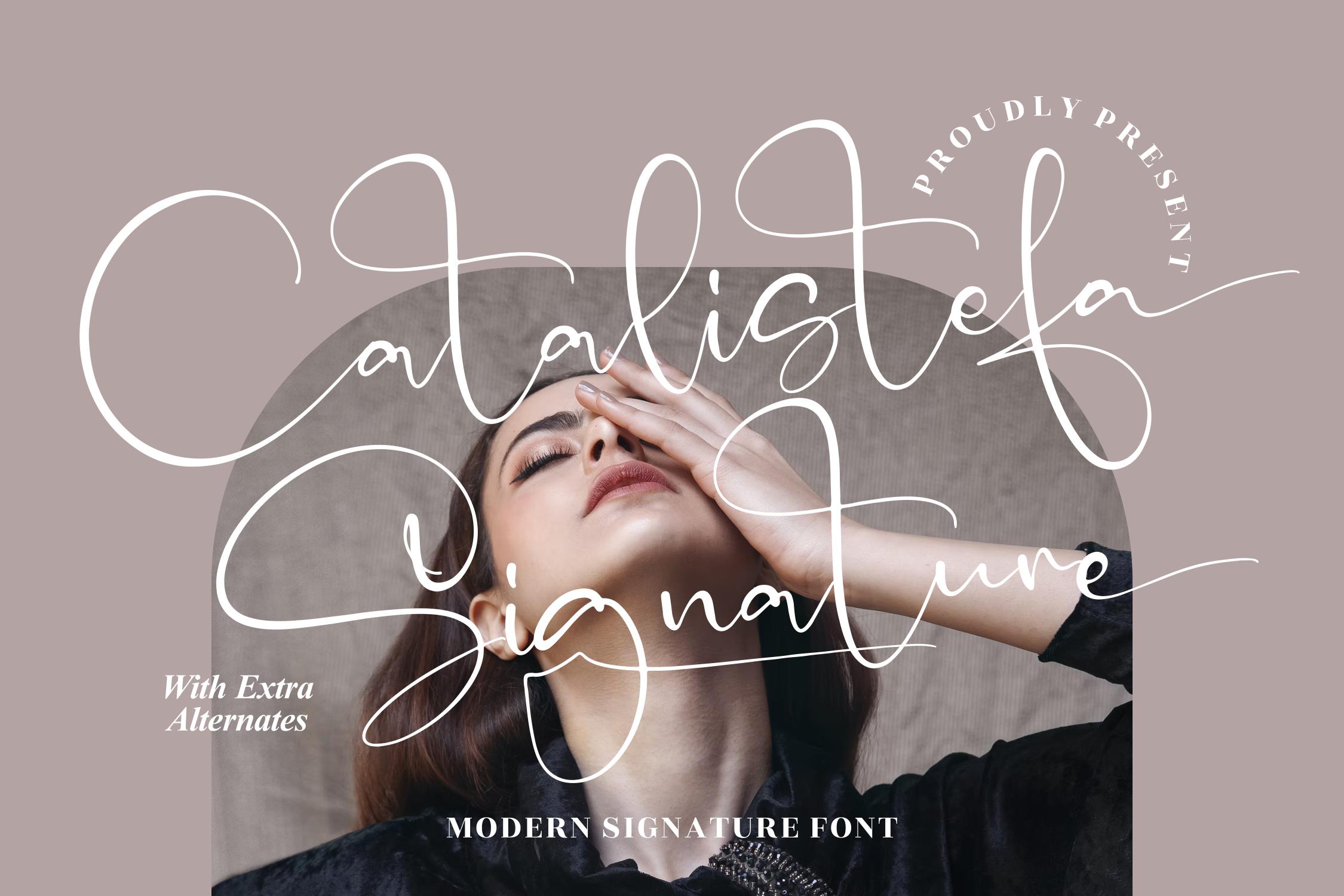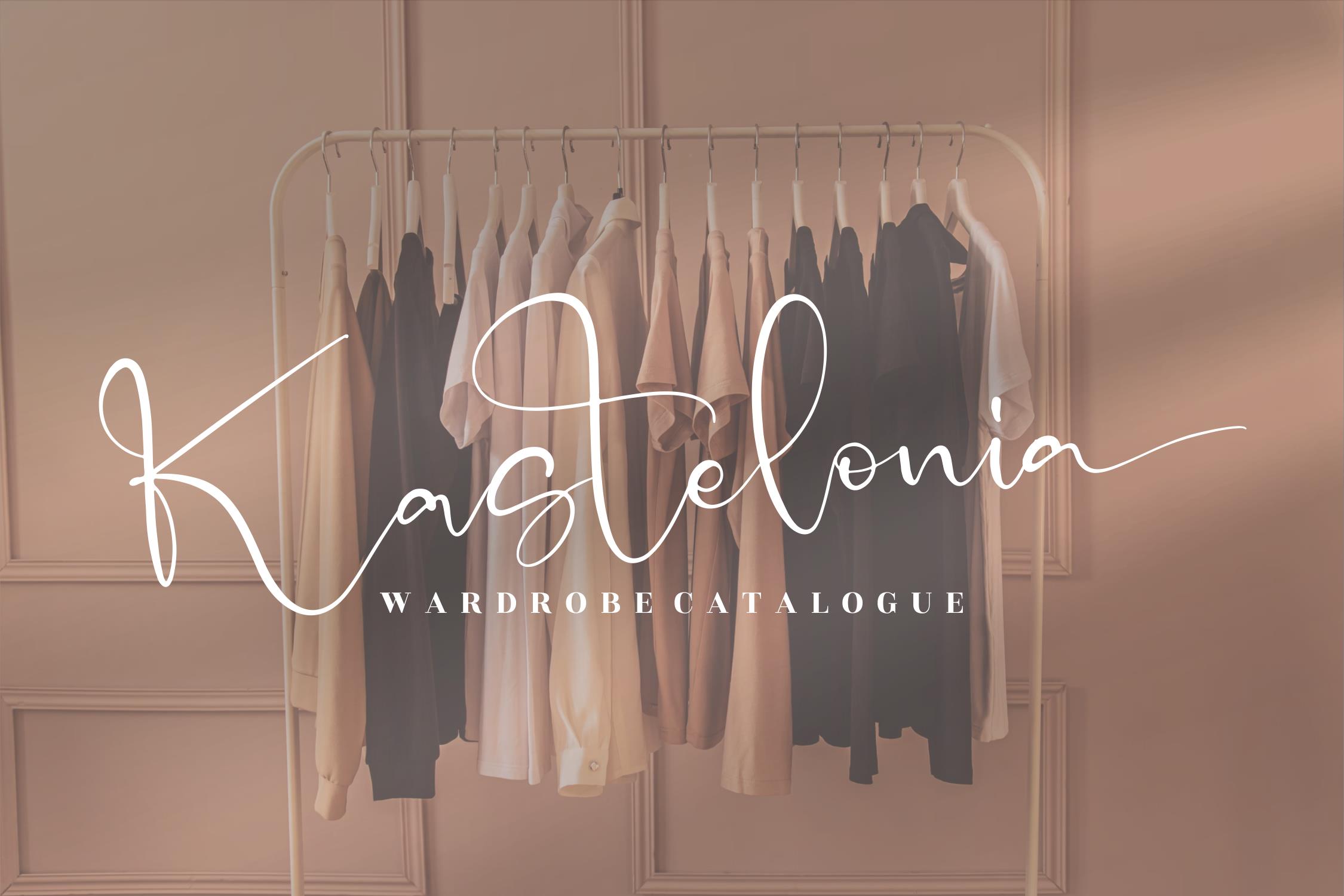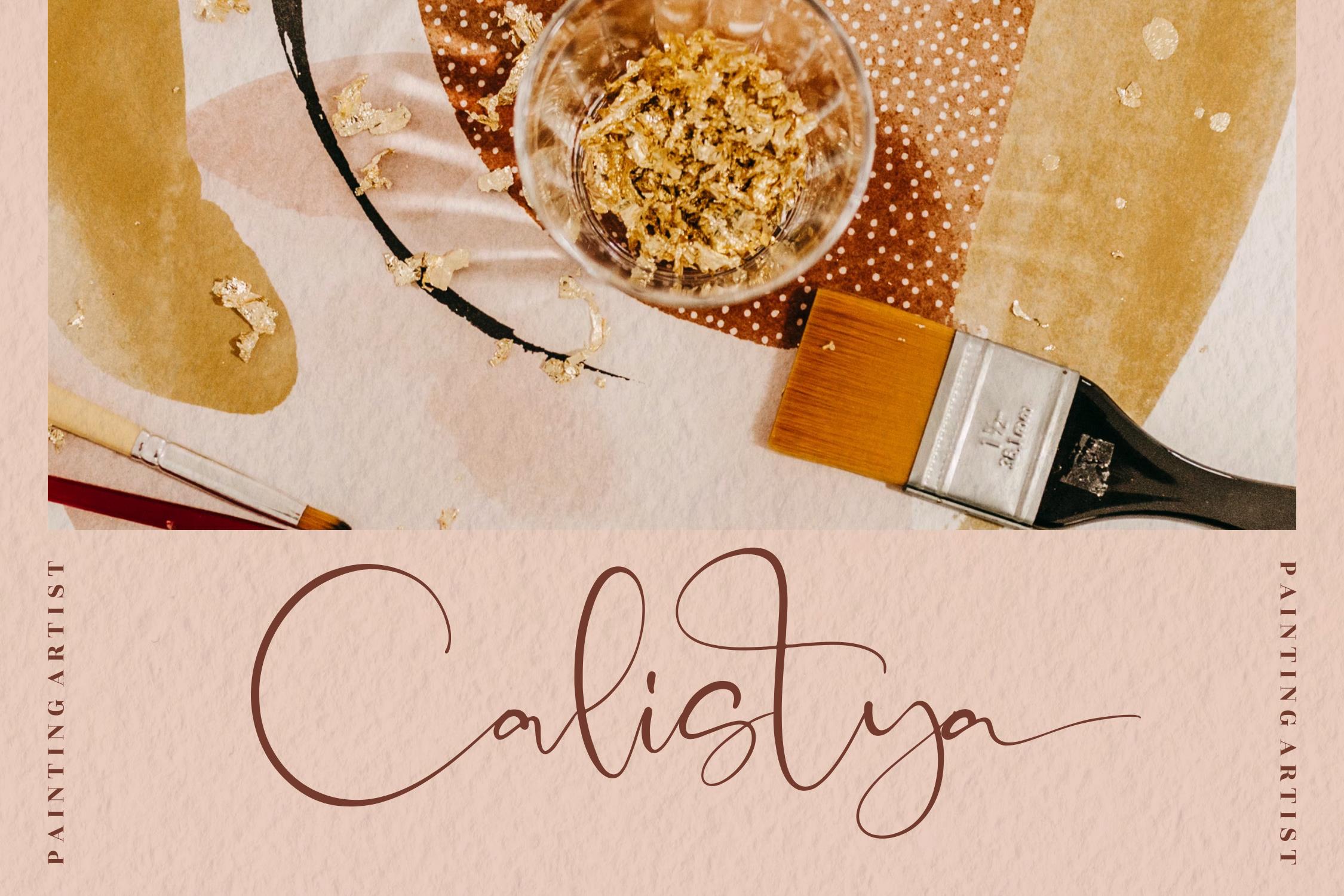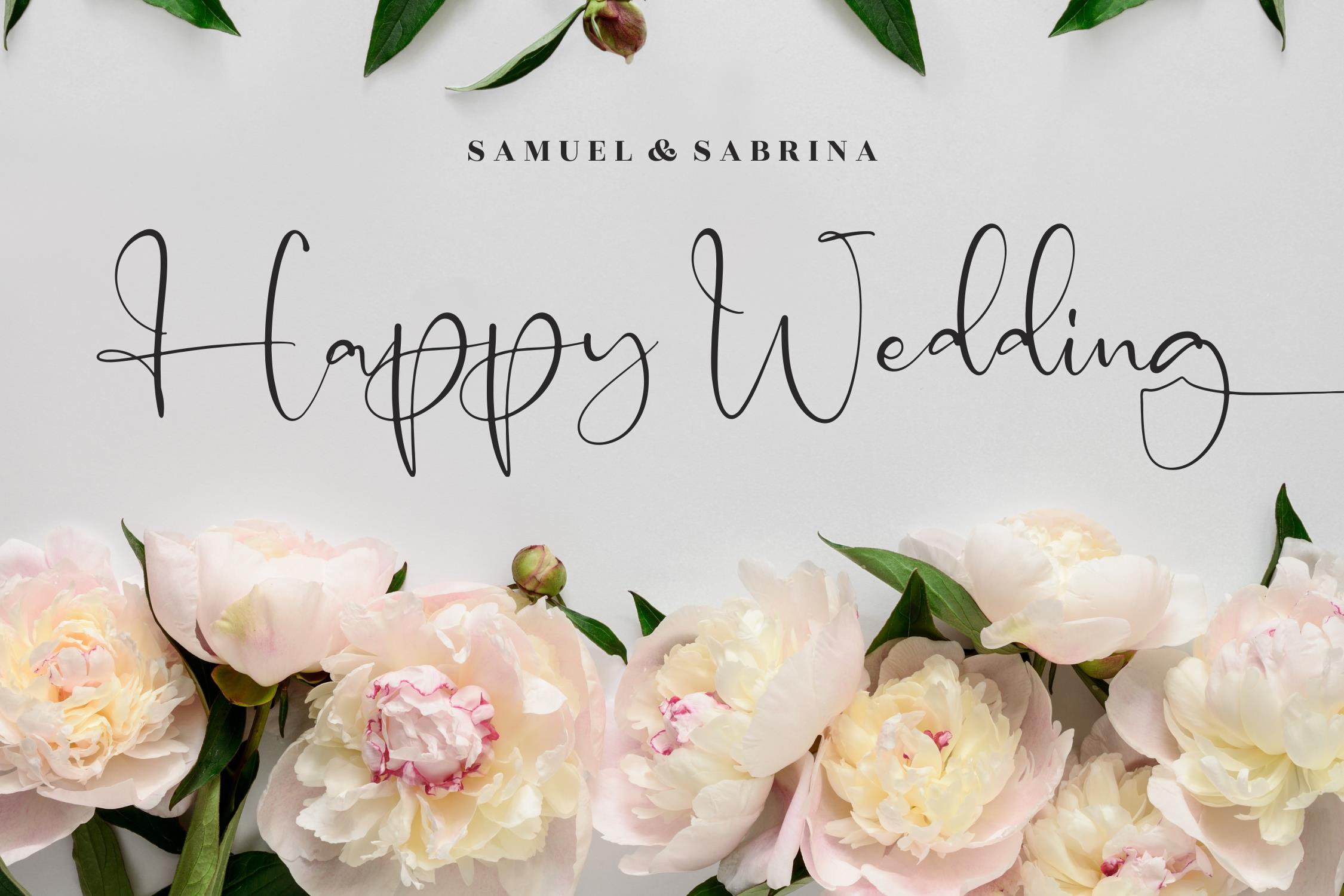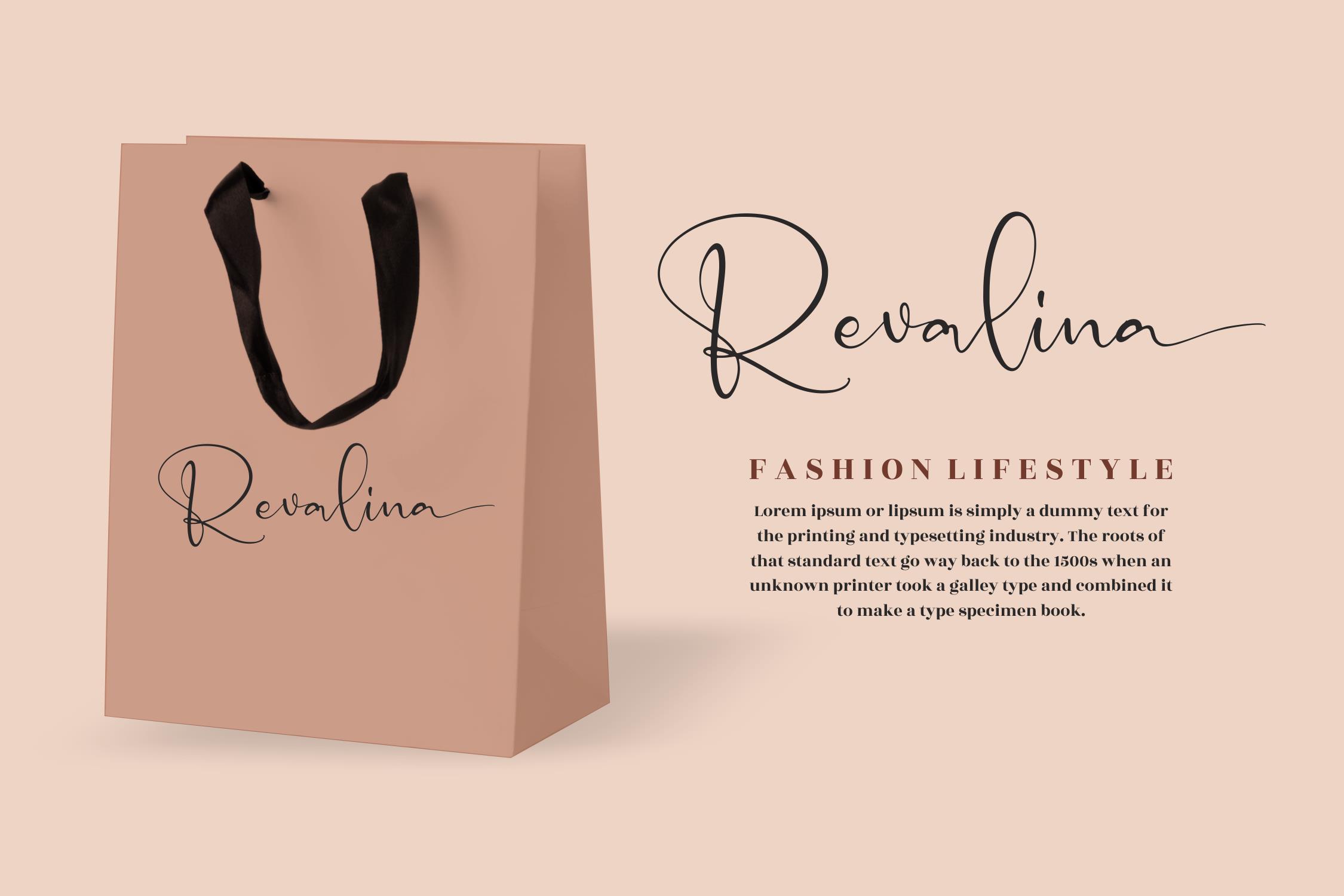
Catalistefa Signature Font
Catalistefa Signature Script Font
This is a beautiful script font, suitable for any projects such as: logos, branding projects, homeware designs, product packaging, mugs, quotes, posters, shopping bags, t-shirts, book covers, name card, invitation cards, greeting cards, label, photography, watermark, special events, and all your other lovely projects that need a beautiful script taste.